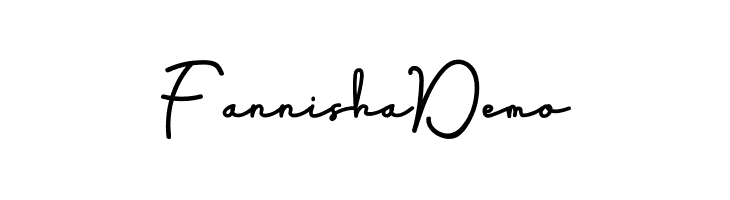
A playful and elegant handwritten script font with smooth, flowing lines.
An elegant script font with decorative swashes and flowing cursive style.
An elegant script font with flowing, cursive letters and a sophisticated flair.